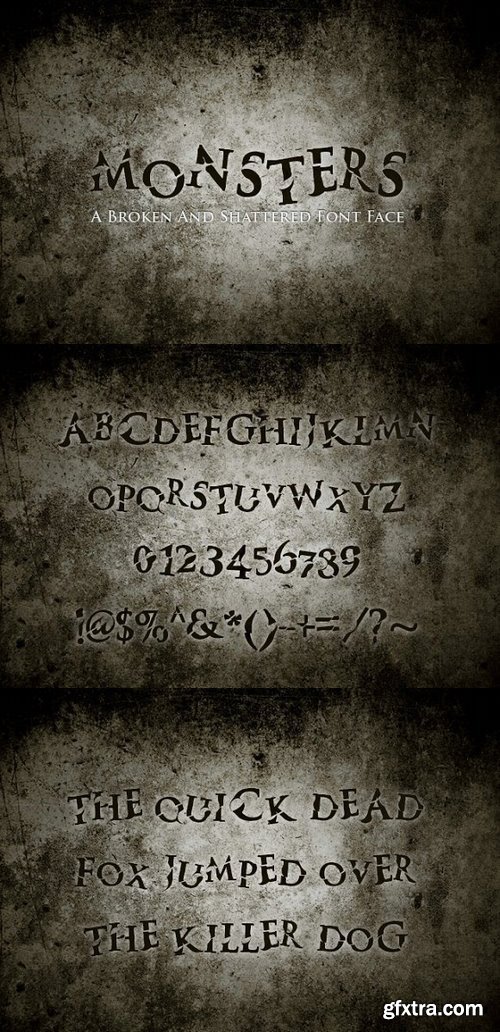
Monsters is a broken style font face. Its somewhat-scary style is perfect for book covers, album designs, or movie posters. The letters are random sizes and tilted at different angles, which results in words that seem scattered and hand placed.